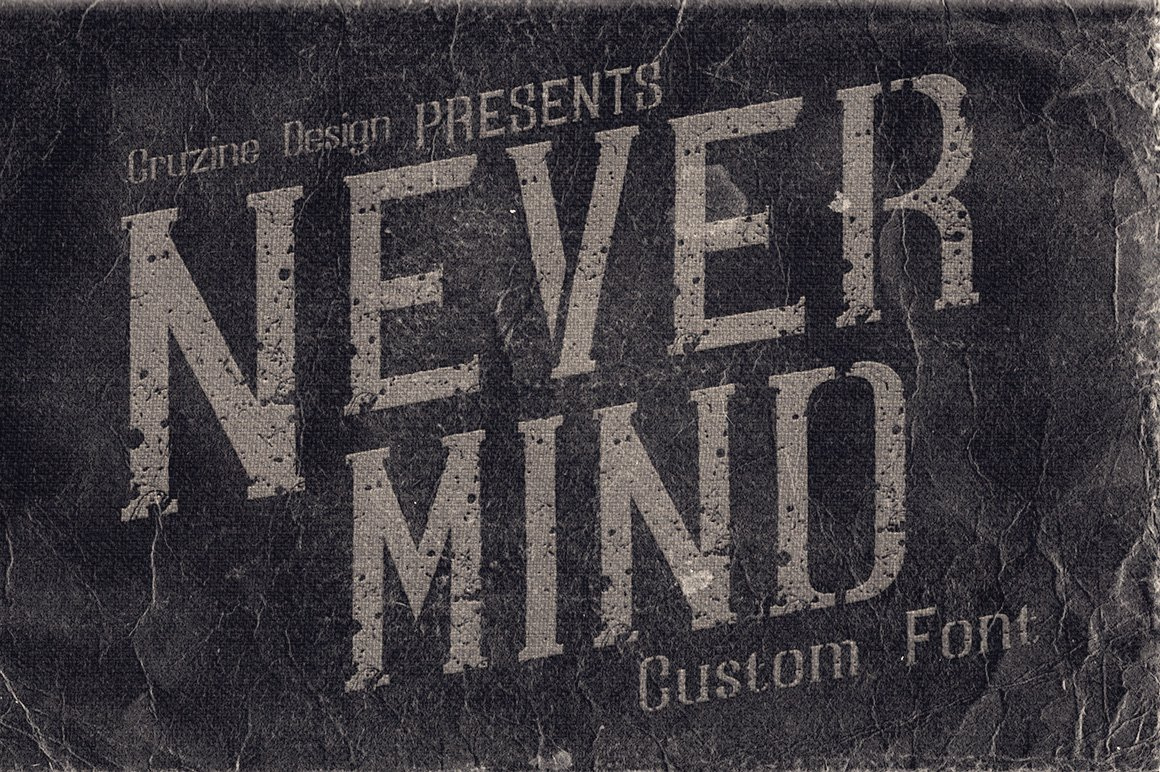
Nevermind Custom Font
Nevermind Custom Font is perfect for alternative music venues, indie record labels, grunge fashion brands, rebellious streetwear companies, underground art galleries, nonconformist lifestyle brands, edgy gaming interfaces, countercultural marketing campaigns, independent creative studios, and authentic alternative culture branding.
Nevermind Custom Font creates excitement because it embodies the rebellious spirit and authentic independence of alternative culture with its bold letterforms and nonconformist character design. The font's raw energy and underground aesthetic instantly convey genuine rebellion and creative freedom, making any brand appear authentically alternative and unapologetically independent. Its carefully crafted rebellious details and countercultural character create an immediate sense of alternative authenticity that captivates audiences seeking genuine rebellion, creative independence, and products that celebrate the transformative power of nonconformist expression and alternative cultural values.
The Nevermind Custom Font family includes multiple weights and styles: Regular, Bold, Light, Medium, Italic, Condensed, Extended, Grunge, Alternative, and Rebellious versions. Each variant maintains the font's signature nonconformist character while offering different levels of alternative styling and rebellious authenticity suitable for various countercultural and independent applications.
This rebellious typeface brings the authentic spirit of alternative culture into contemporary design with remarkable independence and countercultural appeal. Nevermind Custom Font Free Download provides alternative brands and independent organizations with access to premium rebellion-inspired typography that embodies the essence of creative freedom and nonconformist excellence. The font's raw design and alternative authenticity make it ideal for businesses seeking to establish meaningful connections with independent audiences who appreciate alternative culture, creative rebellion, and the transformative power of nonconformist expression that challenges mainstream conventions. Whether you're creating branding for independent music labels, designing materials for alternative fashion companies, developing communications for underground venues, or producing content for countercultural movements, this font delivers the authentic alternative atmosphere that resonates with audiences seeking genuine rebellion, creative independence, and the freedom that comes from embracing authentic alternative culture. Its versatile design ensures outstanding performance across both raw printed materials and edgy digital alternative platforms while maintaining the character of authentic rebellious typography. The font excels in applications requiring alternative credibility and rebellious appeal. Independent creative professionals appreciate its ability to convey alternative authenticity while remaining highly functional for various countercultural communications and rebellious promotional materials. The comprehensive character set includes alternative symbols and extensive international language support, making it perfect for global alternative brands and international countercultural organizations seeking to communicate authentic rebellion, creative independence, and alternative excellence to diverse worldwide audiences who embrace nonconformist values, seek creative freedom, and value the transformative power of genuine alternative culture that challenges conventional thinking through authentic rebellion, creative expression, and the courageous pursuit of independent artistic vision that refuses to compromise authentic creative integrity for mainstream acceptance.